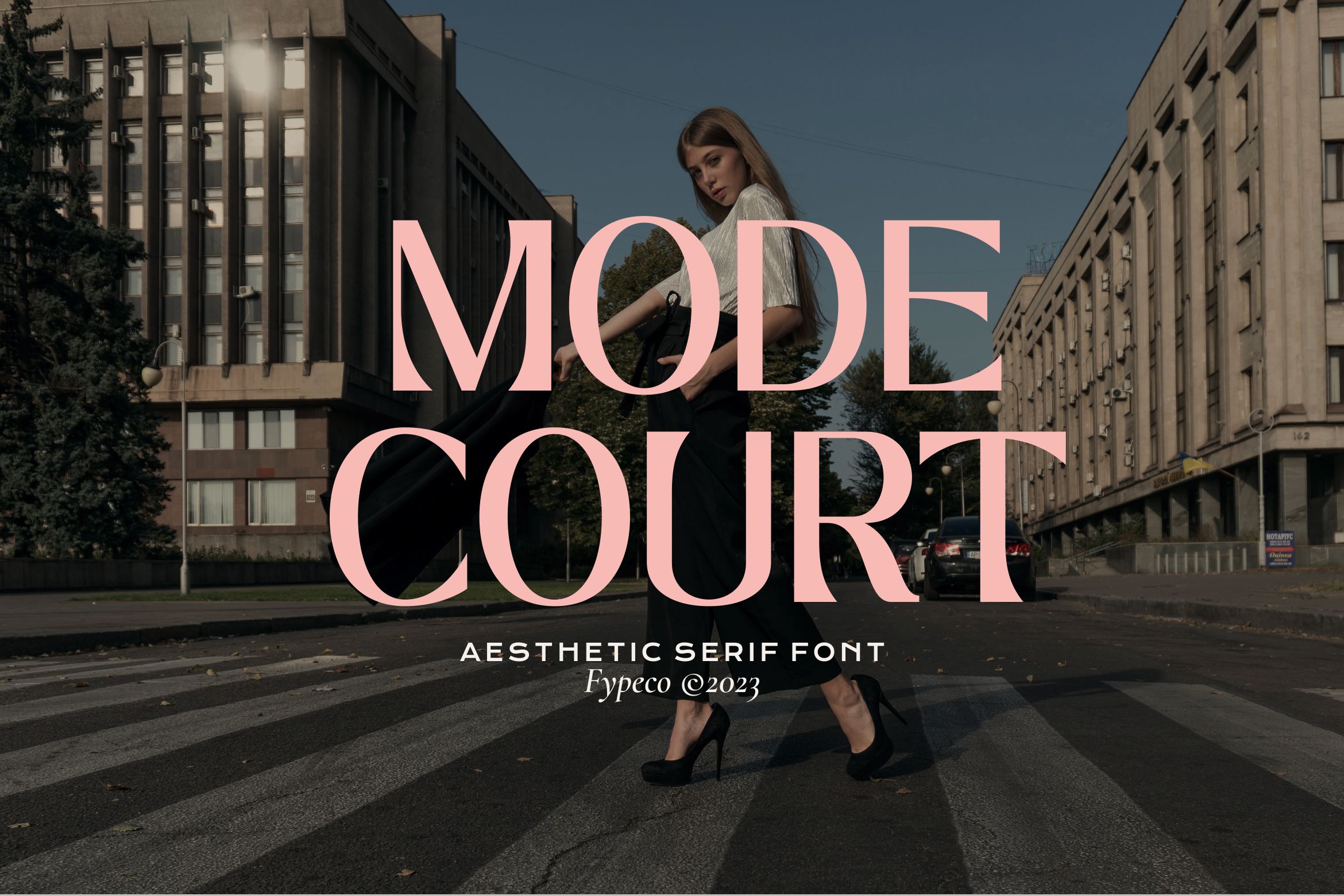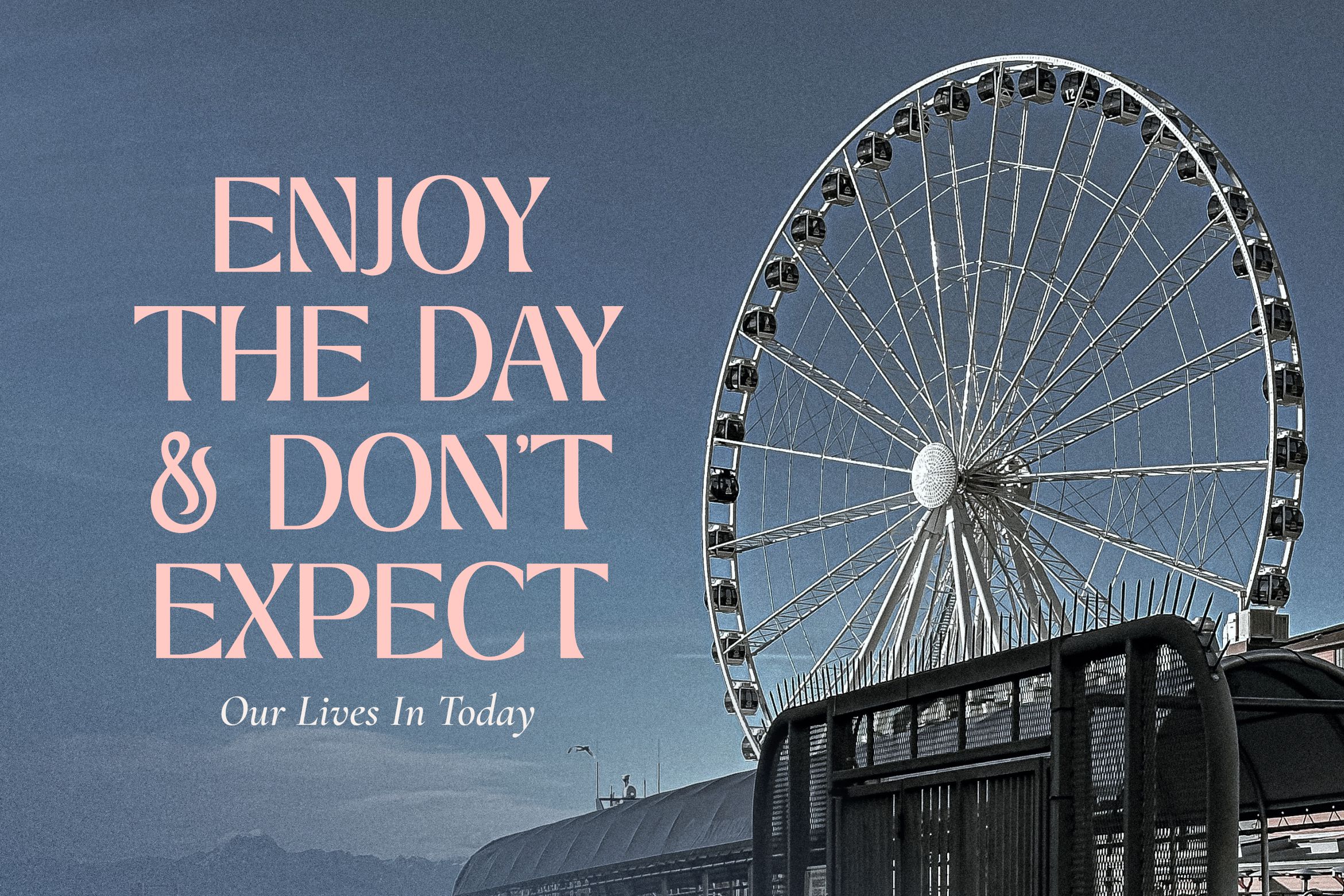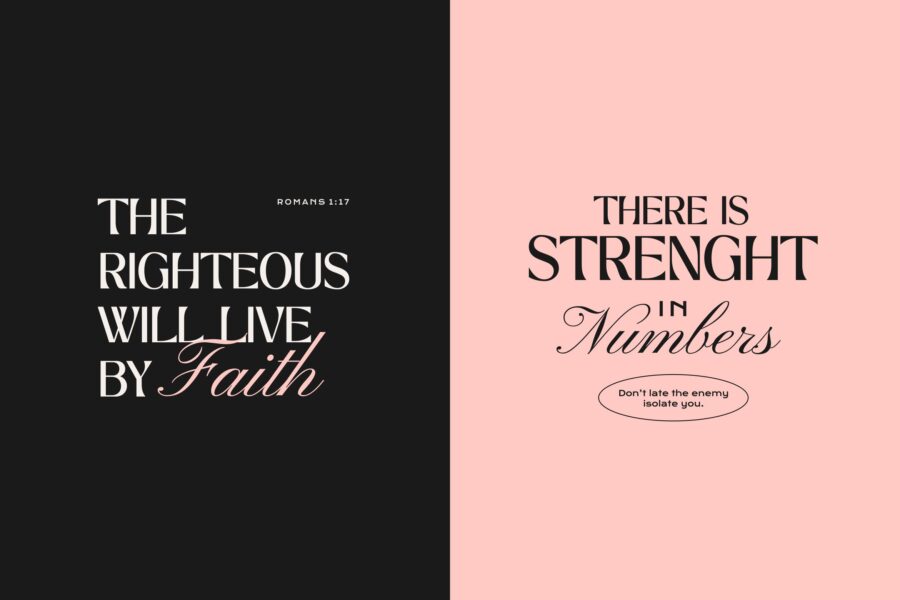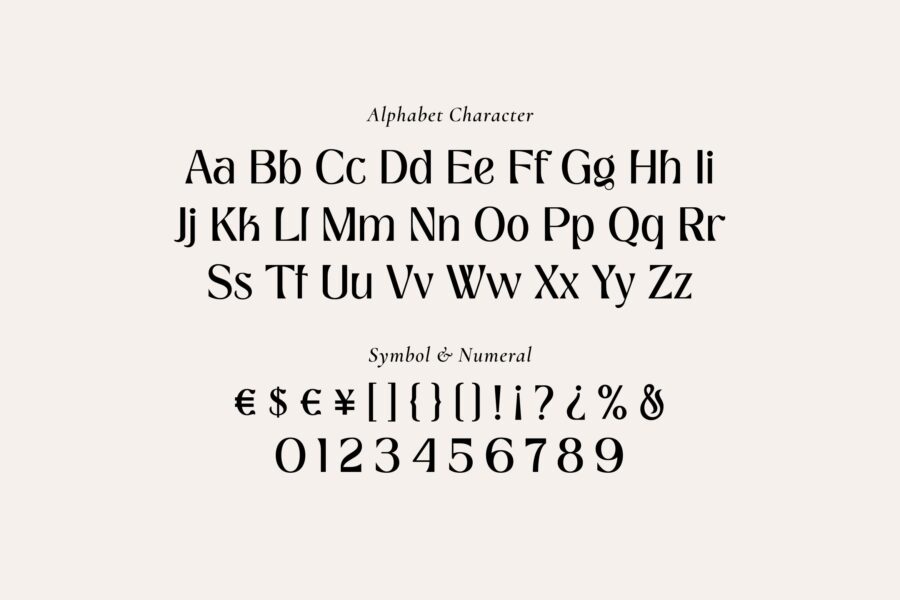
Mode Court is an aesthetic serif display font that blends vintage charm with a modern twist. Its high-contrast strokes and uniquely tapered letterforms make it ideal for stylish branding, impactful headlines, and editorial layouts. The font maintains excellent readability while offering personality and elegance in every character.
Complete with multilingual support, symbols, and numerals, Mode Court gives designers the tools to create distinctive and expressive typography. Whether for fashion campaigns, inspirational quotes, or creative packaging, this font will elevate your design with sophistication and bold character.
Mode Court